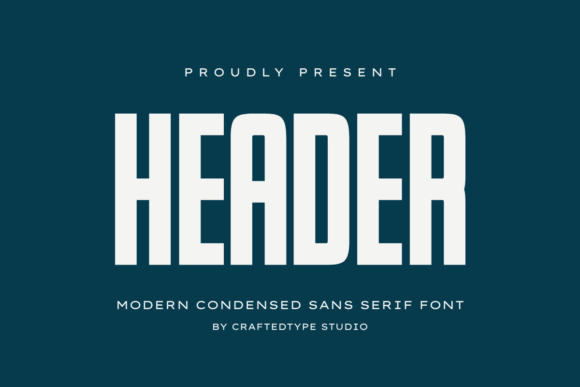
Introduction to Header Font
Header is a bold and sophisticated modern condensed sans serif font, meticulously crafted for designers who seek a balance of strength and elegance.
Featuring tall, clean letterforms with subtly softened corners, this font provides a high-impact look that remains approachable and professional It is an exceptional choice for Print On Demand projects such as statement t-shirts, typography posters, and modern tote bags, as well as for digital branding, tech logos, and sleek product packaging.
Key Features of Header Font